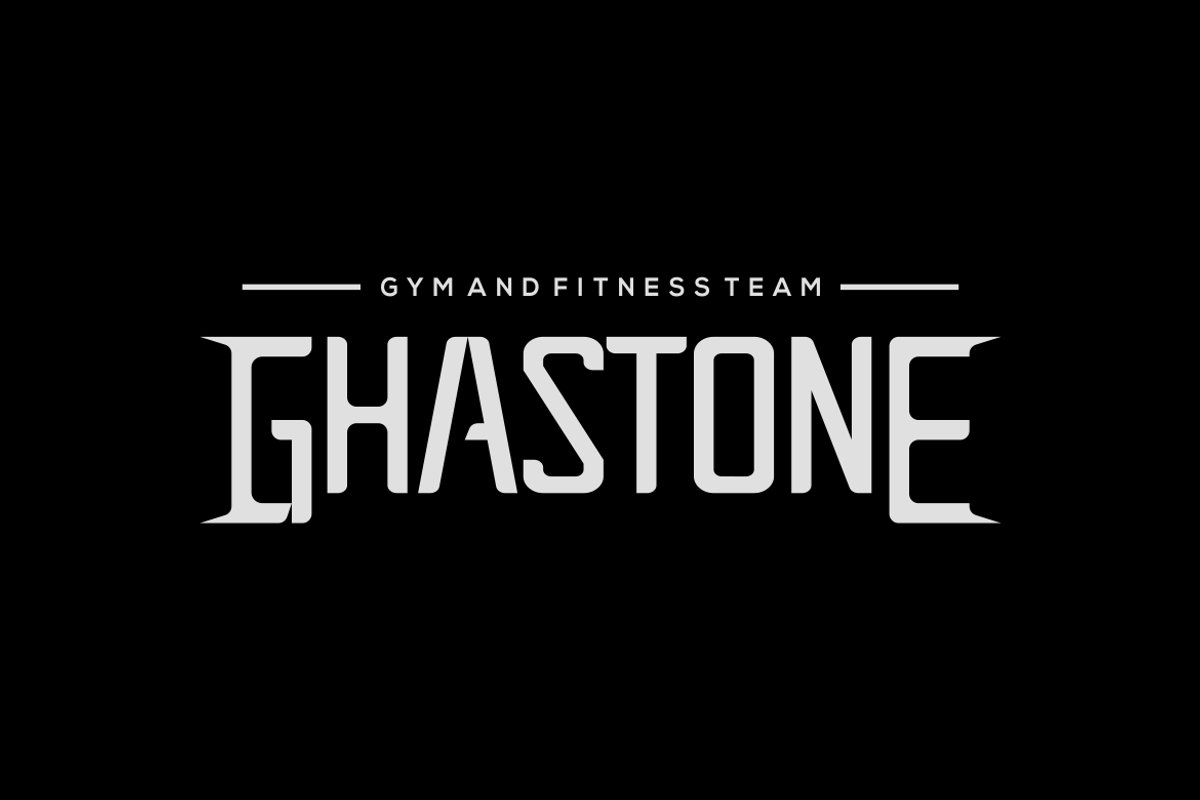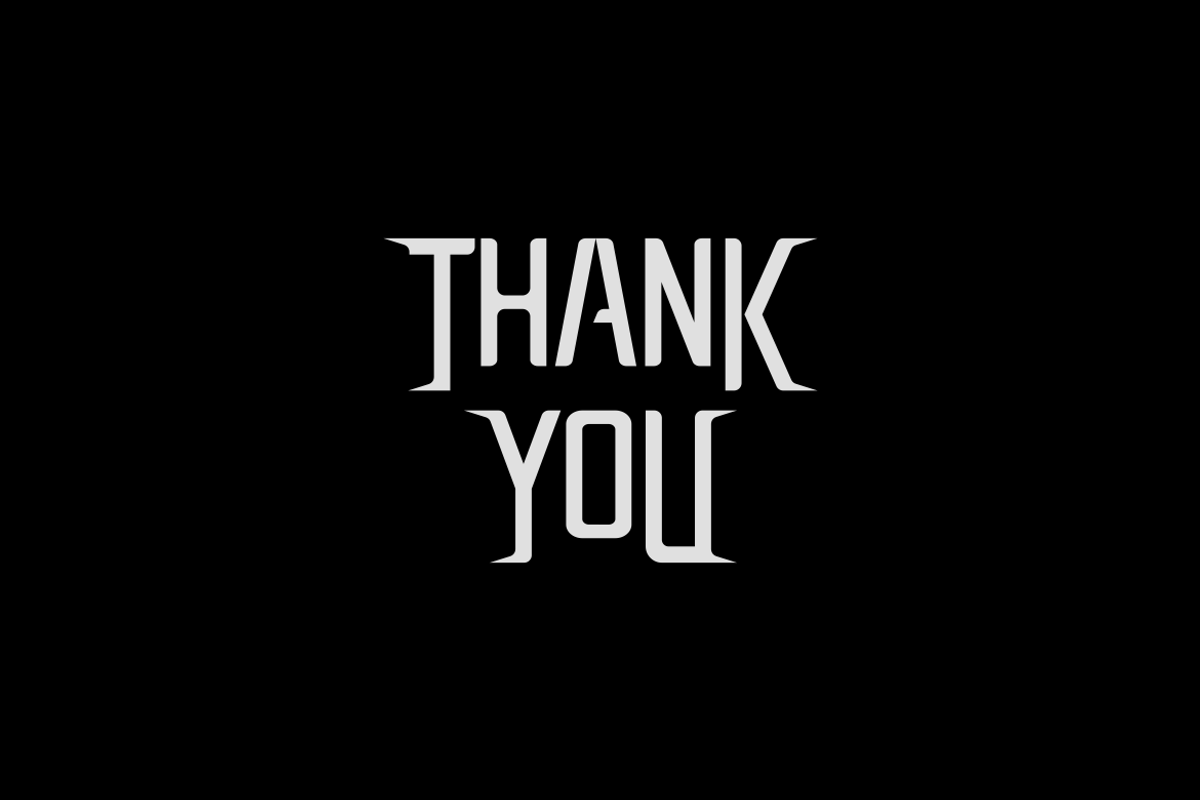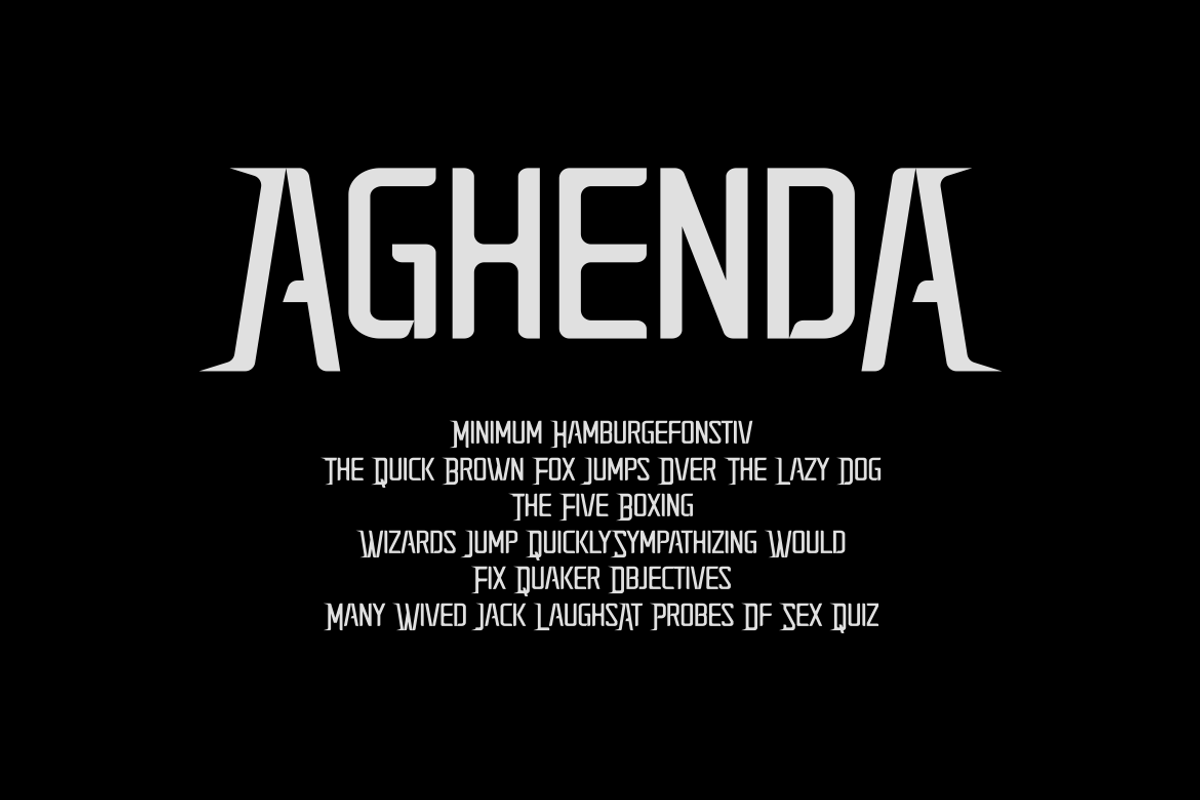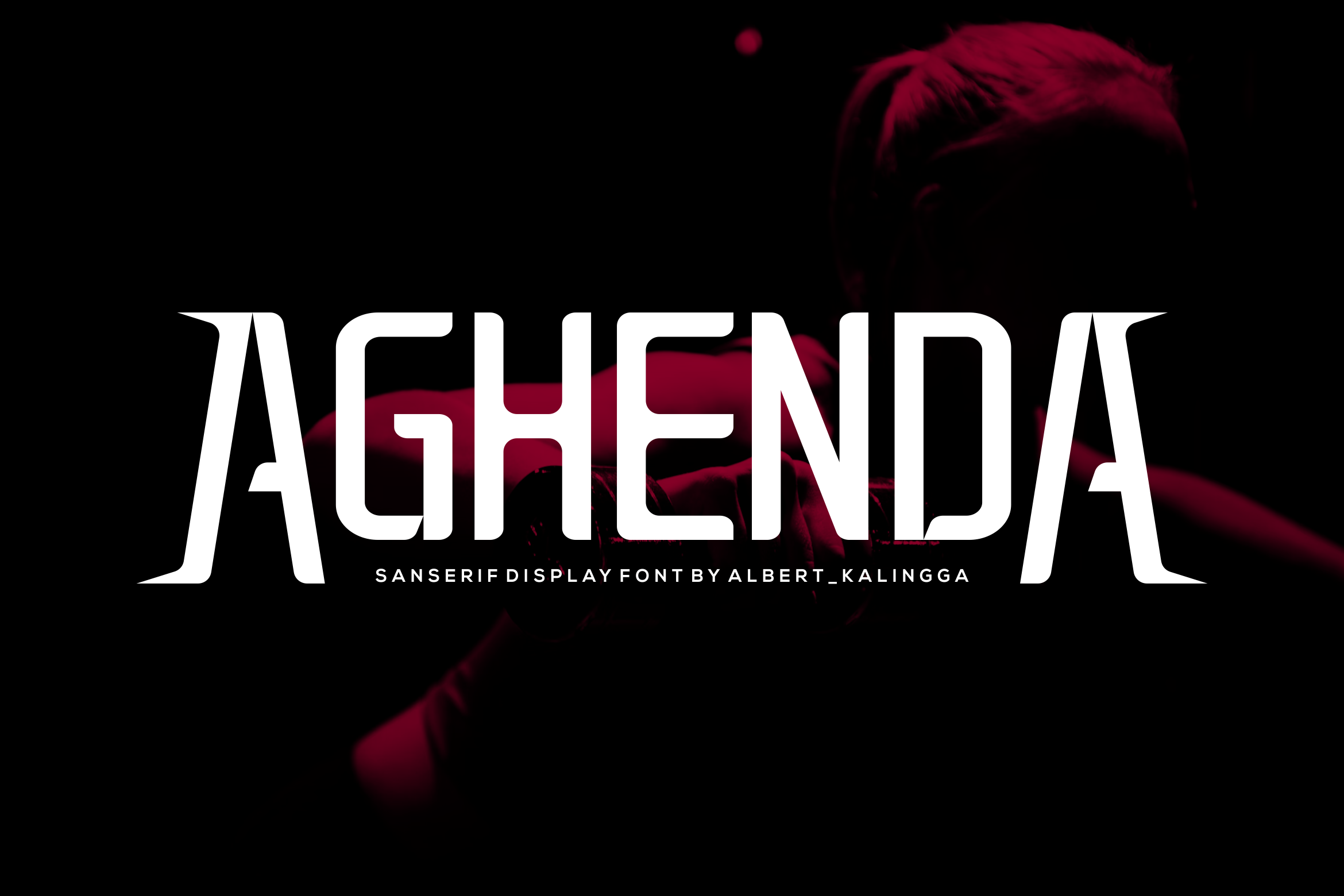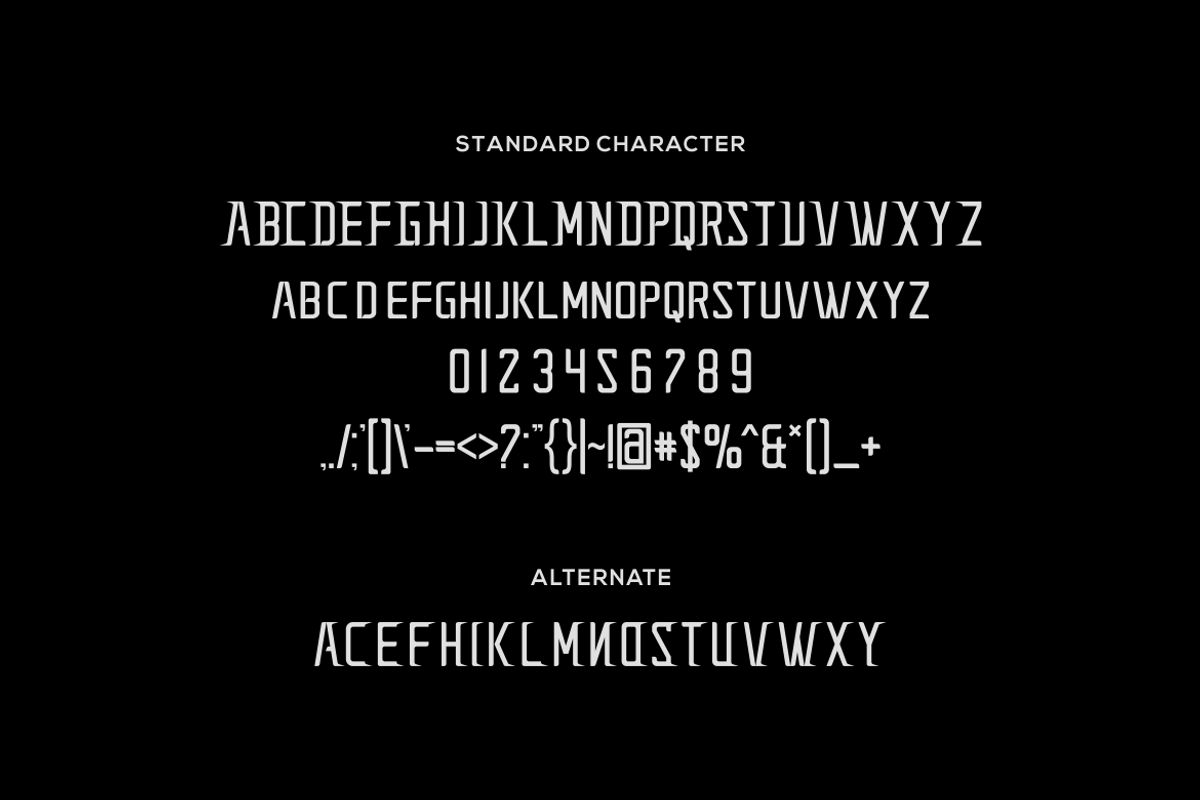
Aghenda Font
Introducing our new product Aghenda Font - Modern Font
Aghenda Font - Modern Font is a bold and authentic display font. The font is suitable for any branding project like logo, esport, and many more. outstanding in a wide range of contexts.